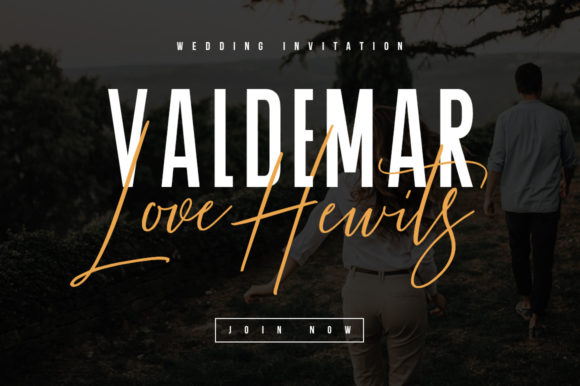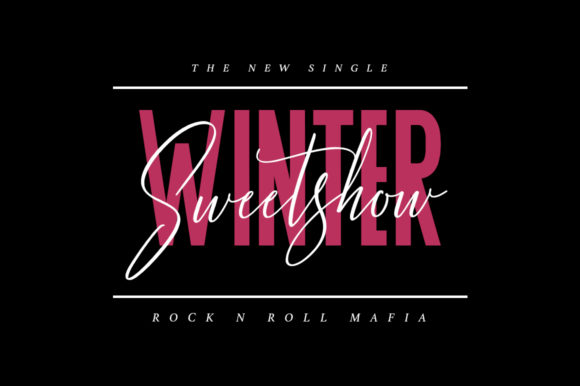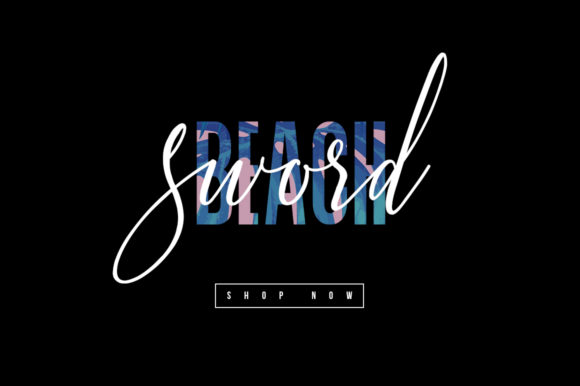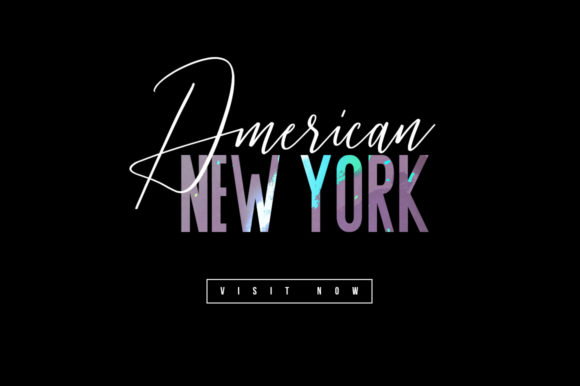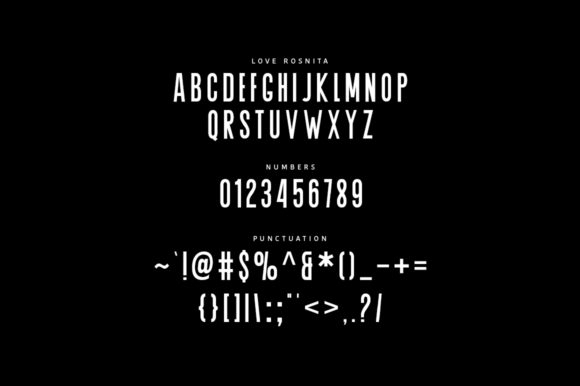
Introduction to Love Rosnita Duo Font
Love Rosnita Duo is a match made in heaven.
This amazing duo font combines a cute script with a great sans serif Use these fonts and add a versatile look to your designs.
Key Features of Love Rosnita Duo Font